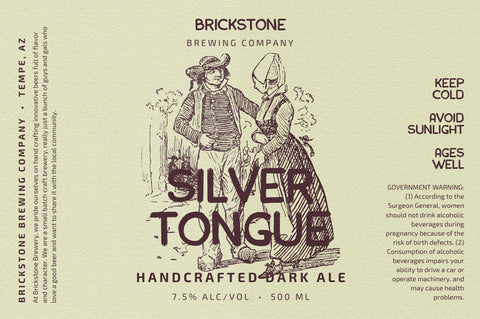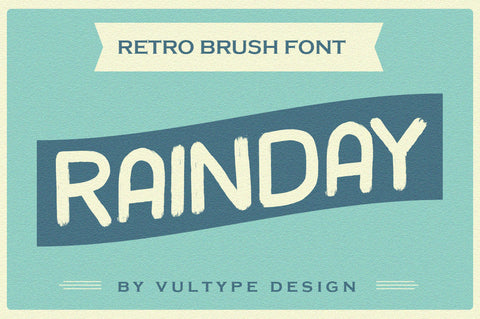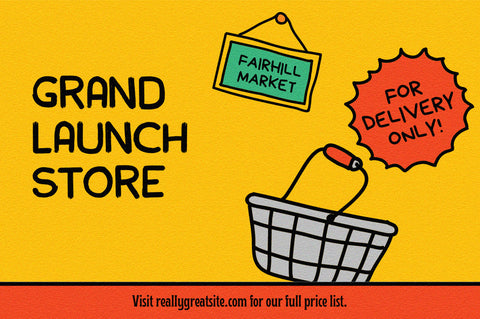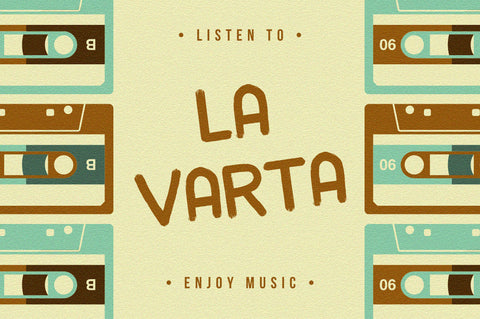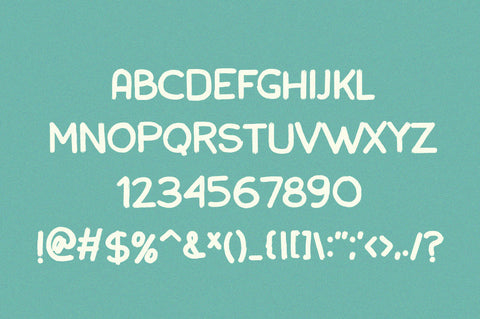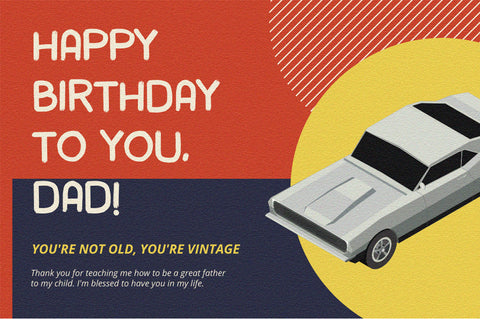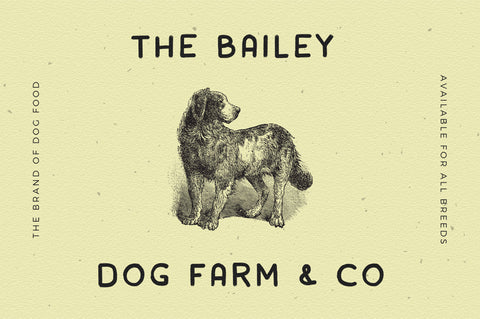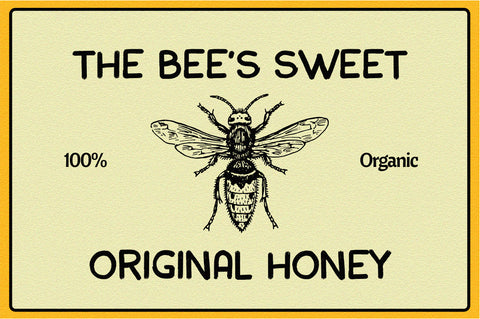
Rainday Vintage Retro Font
Rainday is a vintage reto font It has both modern and retro look - clear, modern and fun. Helps to create layout design in 60s or 70s design projects.
This font have more than 50 unique alternate and ligature that to give your logo,business card and another project to a unique vintage look. It has Italic version too so what a perfect vintage font
- Unique letterforms